Choosing the right luxury hotel fonts for premium hospitality branding is often the difference between a brand that feels exclusive and one that feels ordinary. Many hotels invest heavily in architecture, interior design, photography, and guest experiences, yet their branding fails to communicate the same level of sophistication. In many cases, the missing ingredient is typography.
Typography is one of the first elements potential guests encounter when visiting a hotel website, viewing a brochure, browsing social media, or seeing an advertisement. The right font can instantly communicate luxury, comfort, trust, and elegance. On the other hand, poor typography can weaken even the most beautiful hospitality brand.
Whether you’re branding a five-star hotel, boutique resort, luxury villa, spa retreat, or premium hospitality service, selecting the right font helps create a memorable and consistent visual identity.
In this guide, we’ll explore luxury hotel fonts for premium hospitality branding and examine how typography can elevate your brand presence.
Why Typography Matters in Hospitality Branding
Luxury hospitality is built on perception.
Before guests experience a room, enjoy the amenities, or interact with staff, they form opinions based on visual communication.
Typography helps shape those impressions by communicating:
- Elegance
- Professionalism
- Exclusivity
- Comfort
- Trustworthiness
- Premium quality
For luxury hotels, typography is more than decoration—it is a branding tool.
What Makes a Great Luxury Hotel Font?
The most effective hospitality fonts typically offer:
- Excellent readability
- Elegant letterforms
- Timeless appeal
- Strong brand personality
- Versatility across digital and print media
These characteristics help create a refined guest experience from the first interaction.
Recommended Luxury Hotel Fonts
Below are several font recommendations that work beautifully for premium hospitality branding.
1. Balmoon
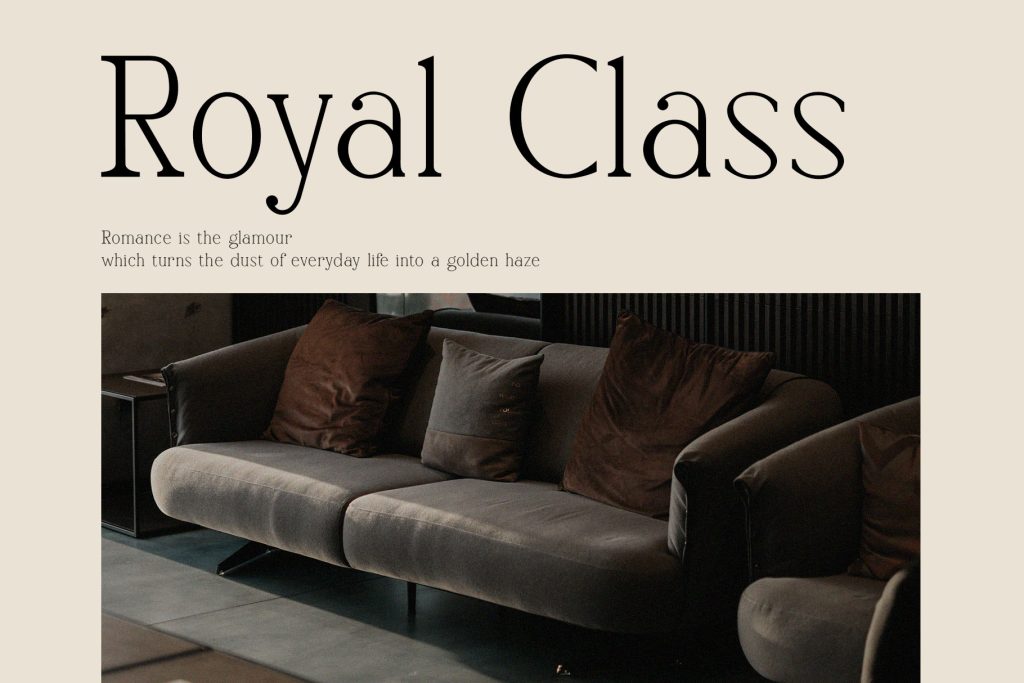
Introducing Balmoon, a modern serif font that effortlessly blends elegance with contemporary design. This modern serif font is meticulously crafted to bring sophistication and clarity to any project.
2. Kefhila Serif
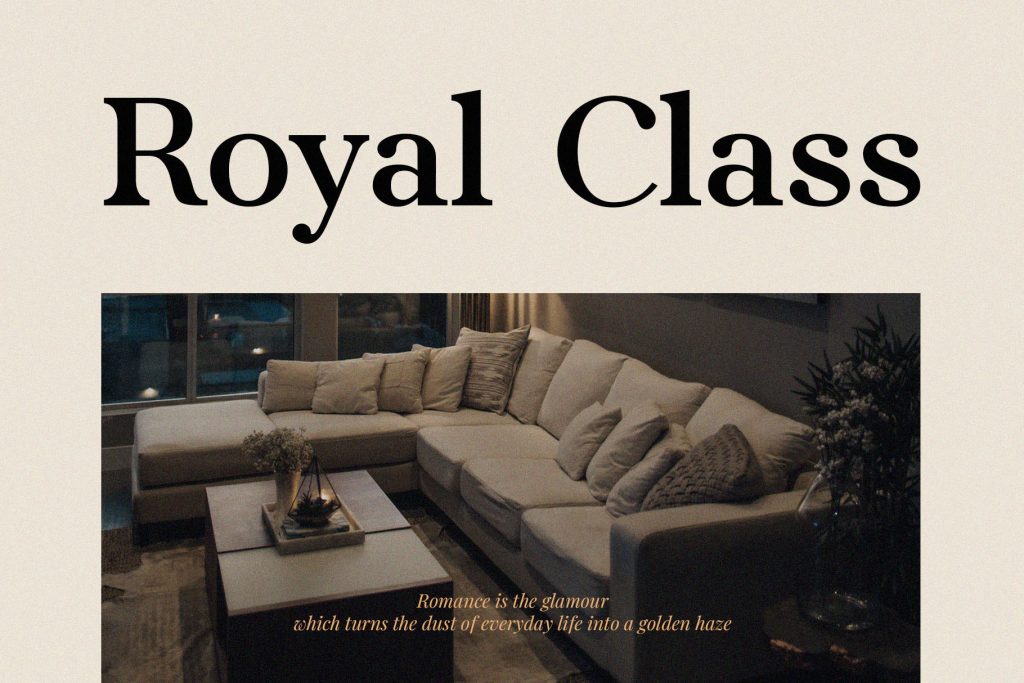
Introducing Kefhila, a feminine indie serif font that exudes elegance and creativity. With its unique organic letterforms, blending curves and angles, Kefhila brings a sophisticated yet whimsical touch to any design
3. Maktron
Discover Maktron, an elegant sans-serif font meticulously crafted to bring sophistication and boldness to your creative projects
4. Saquero
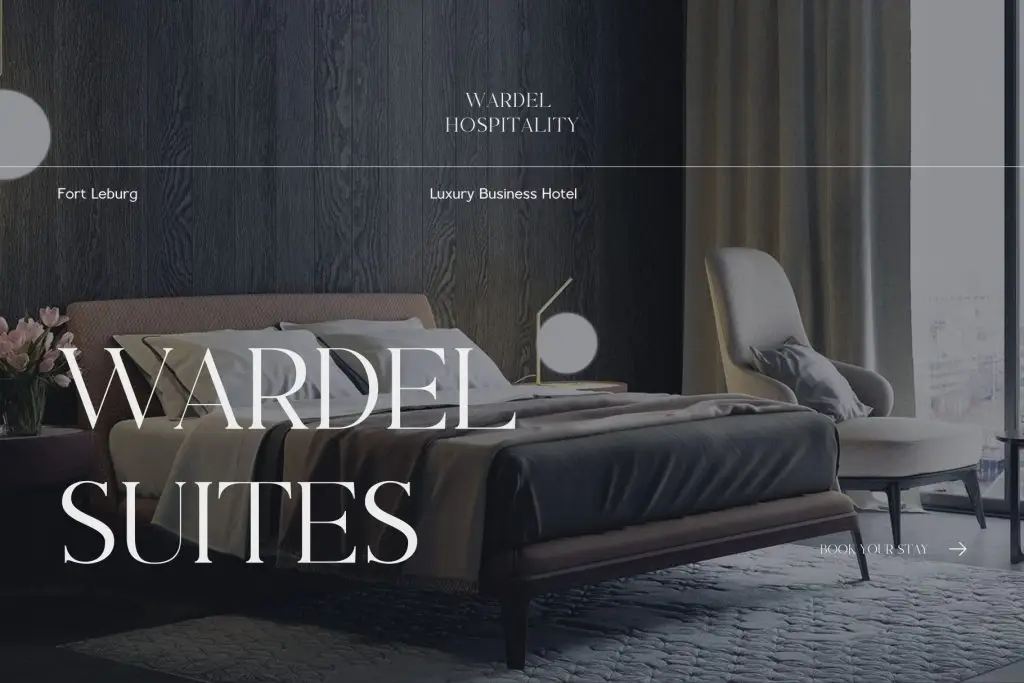
Introducing Saquero, a modern serif font designed to bring elegance and clarity to your creative projects. Its meticulously crafted letters strike a perfect balance between modern aesthetics and timeless sophistication
5. Sharone
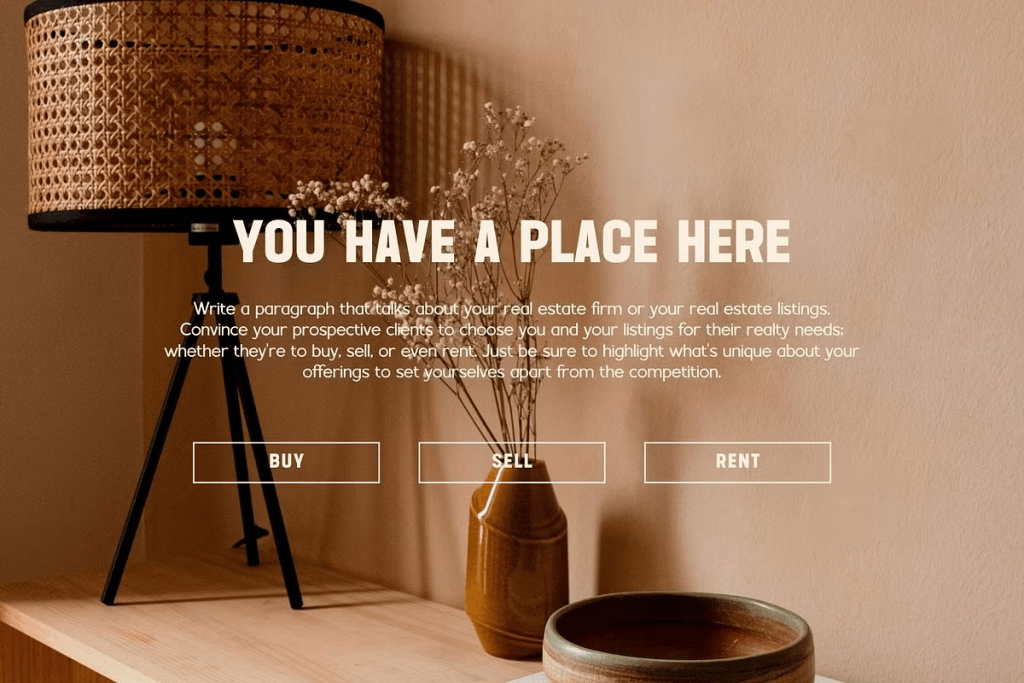
Introducing Sharone, a simple, bold, all-caps display font designed to command attention with its clean and powerful design.
Best Use Cases for Luxury Hotel Fonts
Different hospitality materials require different typography approaches. Understanding where these fonts perform best helps create a stronger branding system.
Hotel Logos
Typography is often the centerpiece of luxury hotel logos.
Elegant fonts help communicate:
- Heritage
- Prestige
- Quality
- Exclusivity
Hotel Websites
A luxury website should feel premium from the moment visitors arrive.
Typography contributes to:
- First impressions
- Readability
- Brand consistency
- User experience
Elegant hospitality fonts help elevate the entire browsing experience.
Resort Brochures
Printed materials remain important in hospitality marketing.
Typography helps organize:
- Room information
- Amenities
- Destination highlights
- Service descriptions
Well-chosen fonts improve both aesthetics and usability.
Social Media Branding
Luxury hotels rely heavily on visual storytelling. Typography used across Instagram, Facebook, and other platforms should reinforce the brand identity while remaining readable on mobile devices.
Signage and Wayfinding
Hotel signage must balance elegance and functionality. Luxury fonts help create a consistent guest experience throughout the property.
Spa and Wellness Marketing
Premium spas often use typography to communicate tranquility and sophistication. Elegant serif fonts are particularly effective in wellness-focused branding.
How Luxury Typography Influences Guest Perception
Typography affects how guests perceive value.
1. Creates a Premium First Impression
Potential guests often judge quality before making inquiries or bookings. Luxury typography helps establish credibility immediately.
2. Builds Brand Recognition
Consistent font usage strengthens visual identity across:
- Websites
Fonts such as Balmoon, Kefhila Serif, Maktron, Saquero, and Sharone offer distinctive personalities that work beautifully across hotel logos, websites, brochures, social media content, and hospitality marketing materials.
By selecting typography that aligns with your brand values and maintaining consistency across all touchpoints, you can create a stronger, more premium hospitality identity that resonates with guests and supports long-term brand growth.